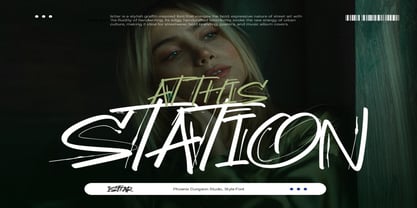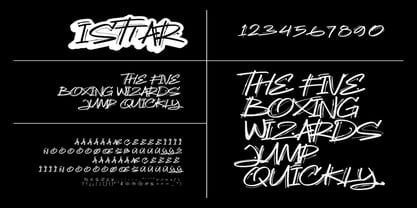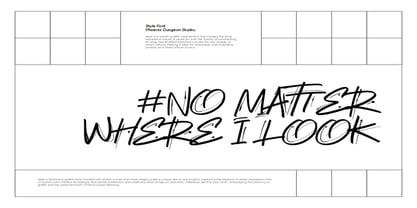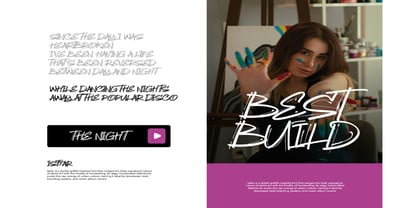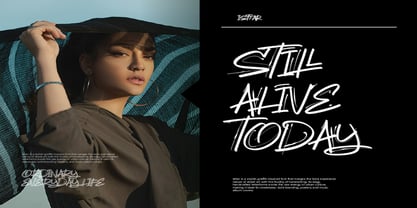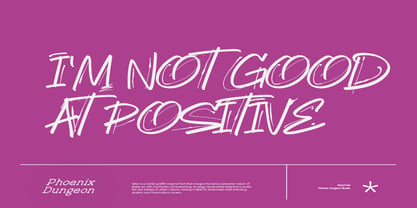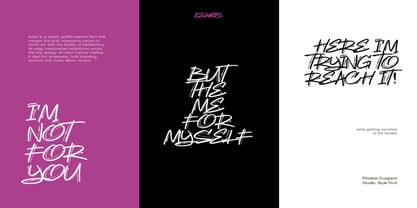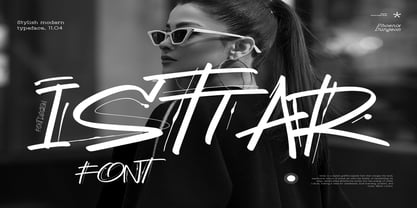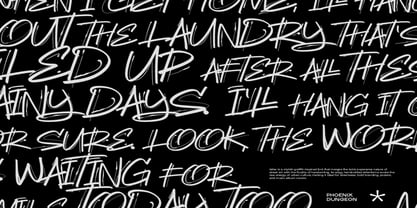
Isttar
by Phoenix Group
The Isttar Font Family was designed by Alif Naufal Muzakki and published by Phoenix Group. Isttar contains 1 styles. More about this family
Ishtar is a stylish graffiti-inspired font that blends street art with handwritten flair. Perfect for bold branding, posters, fashion, music covers, and social media. With expressive strokes and raw energy, it adds a rebellious, modern edge to any design. Includes uppercase, punctuation, and alternates. Ideal for streetwear and edgy visuals. Make your message loud with Ishtar!
Designers: Alif Naufal Muzakki
Foundry: Phoenix Group